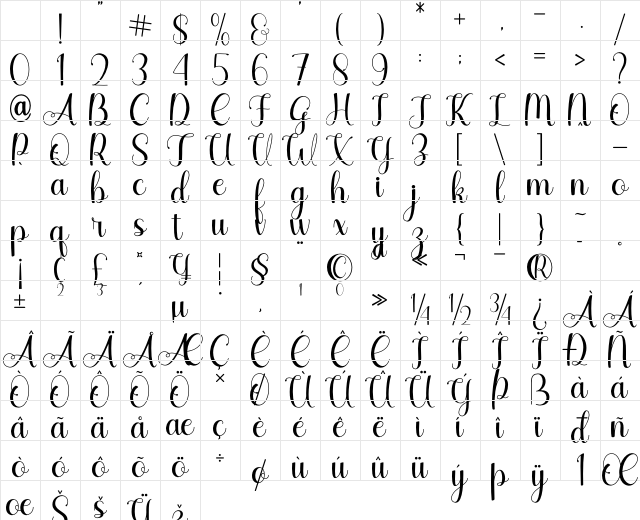
Complete Agilia Regular glyph index. Displaying only characters natively supported by Agilia Regular font.
Agilia is a composed and adaptable typeface that performs quietly and consistently across a wide range of design contexts.